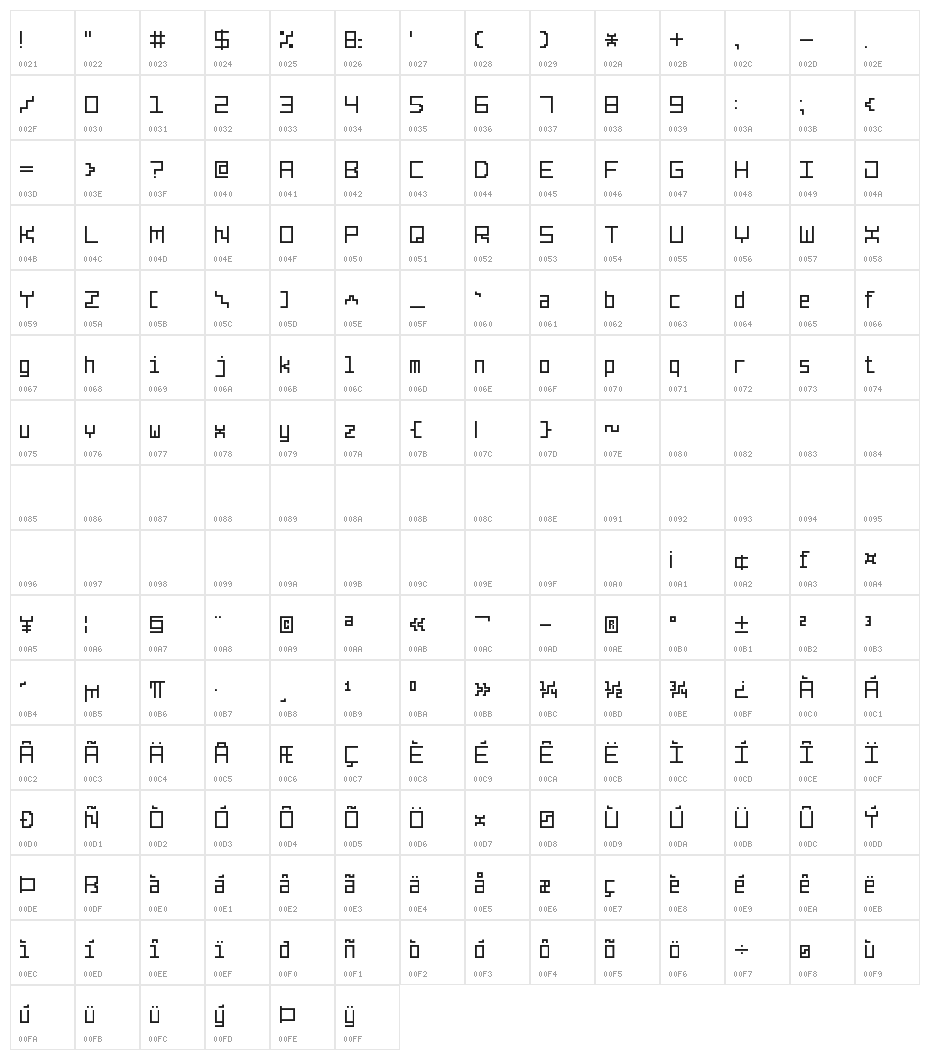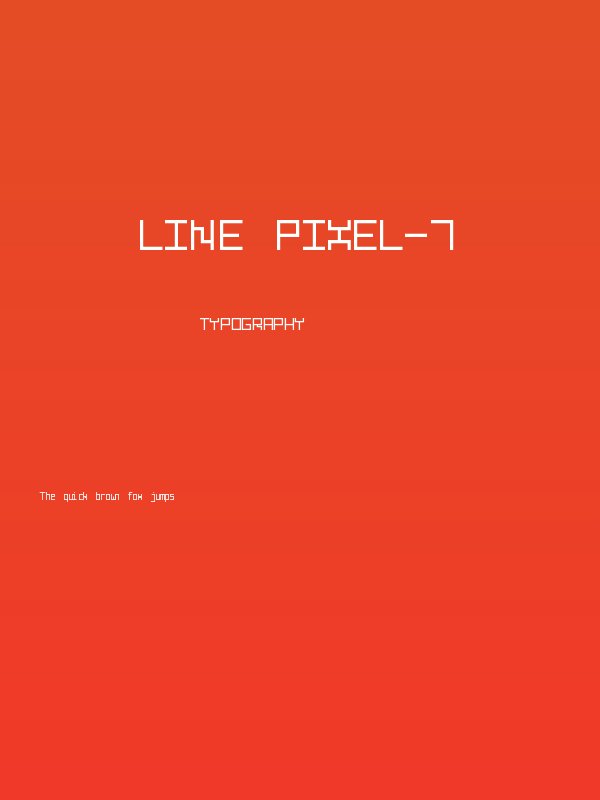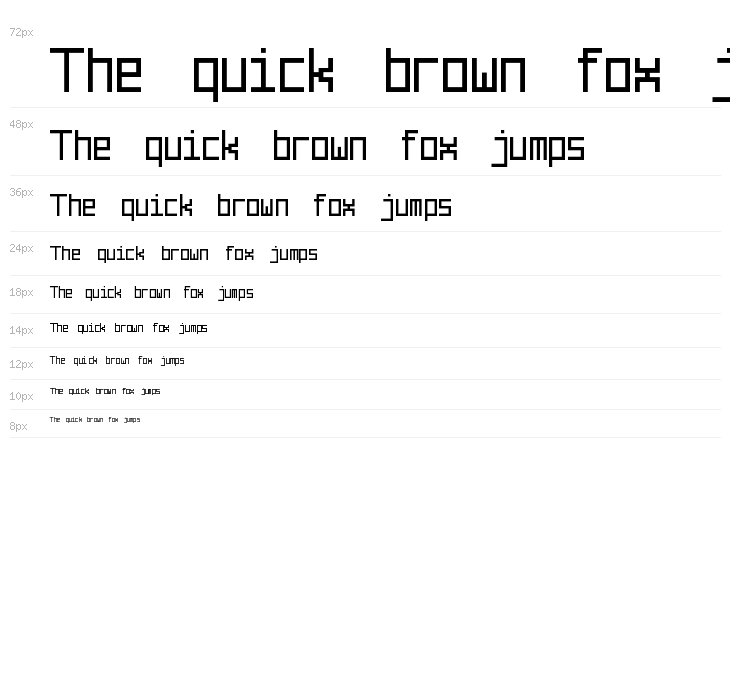
Line Pixel-7 Font
Line Pixel-7 Description
This font exhibits a pixelated, blocky style reminiscent of early digital displays and retro video games. Each character is constructed with a uniform grid-like structure, giving it a distinctly geometric and mechanical appearance. The uppercase and lowercase letters maintain a consistent height, enhancing the font's uniformity. The numerals and special characters follow the same pixelated design, ensuring a cohesive look across all glyphs. This font's simplicity and clarity make it highly legible, even at smaller sizes, while its nostalgic aesthetic evokes a sense of vintage digital charm.
| Use Case | Logos, Headlines, Digital displays |
| Proposed Projects | Ideal for retro video game graphics, digital-themed posters, and nostalgic branding projects. |